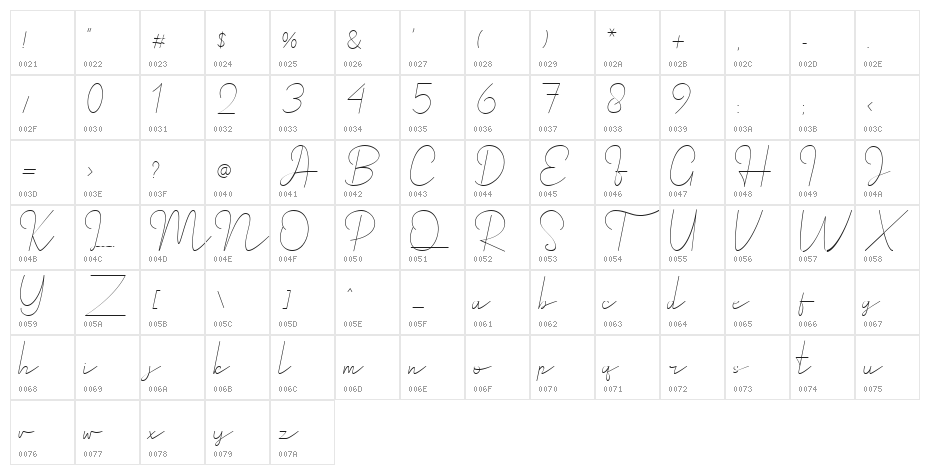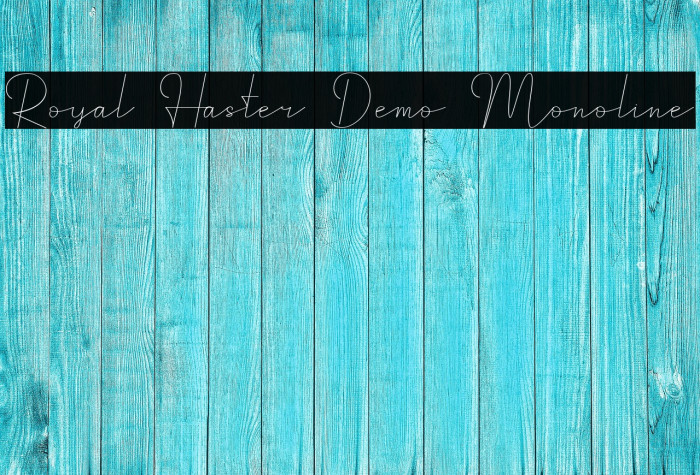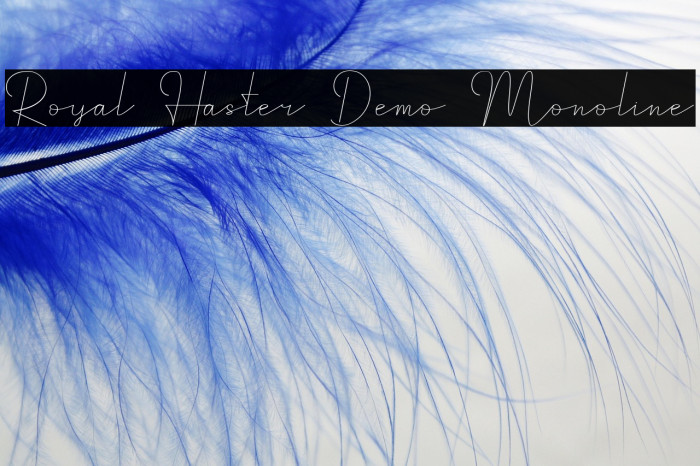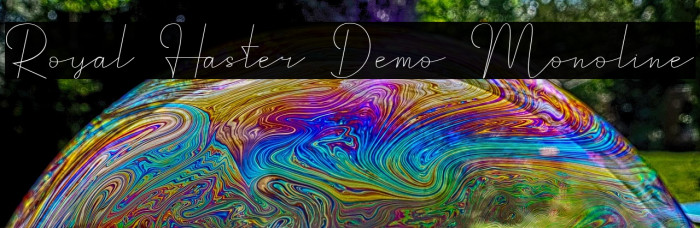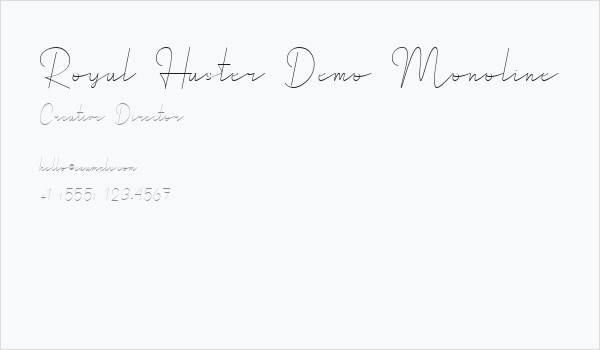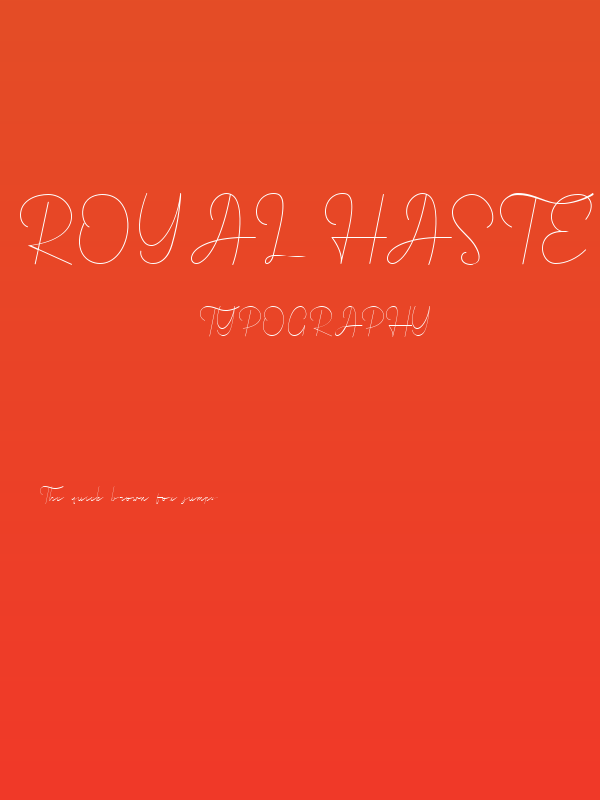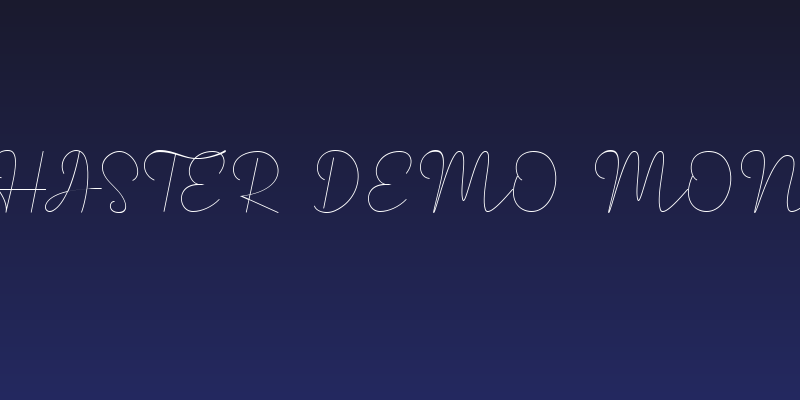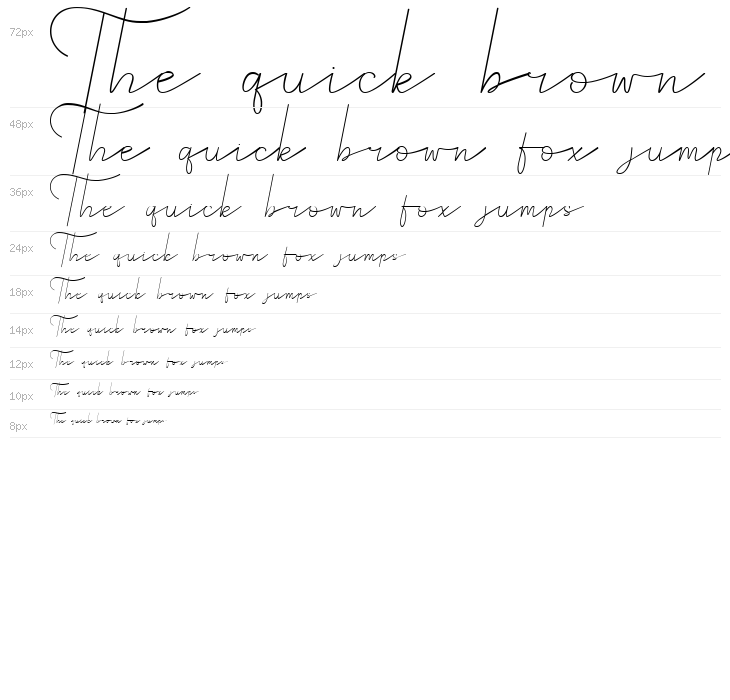
Royal Haster Demo Monoline Font
Royal Haster Demo Monoline Description
This elegant monoline script font features a smooth and flowing design, characterized by its consistent stroke width and graceful curves. The uppercase letters exhibit a sophisticated and airy style, while the lowercase letters maintain a fluid and connected appearance, enhancing readability. The numerals are clear and balanced, complementing the overall aesthetic. Special characters are thoughtfully designed, ensuring versatility in various applications. The font's delicate lines and modern script style make it suitable for projects that require a touch of elegance and sophistication.